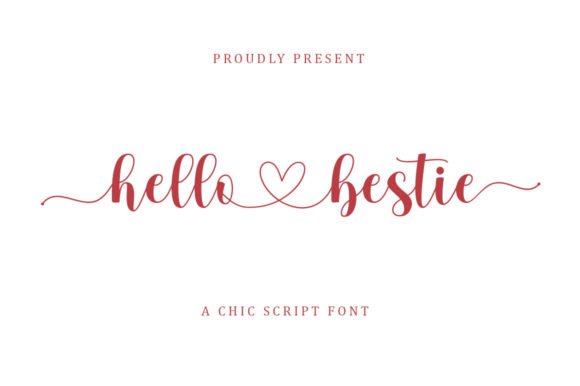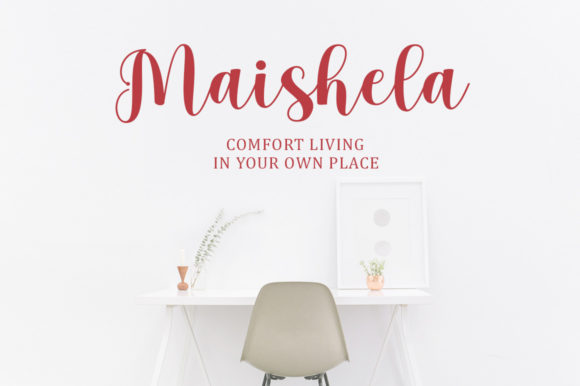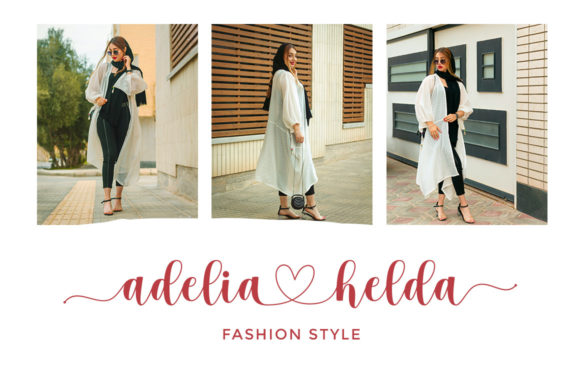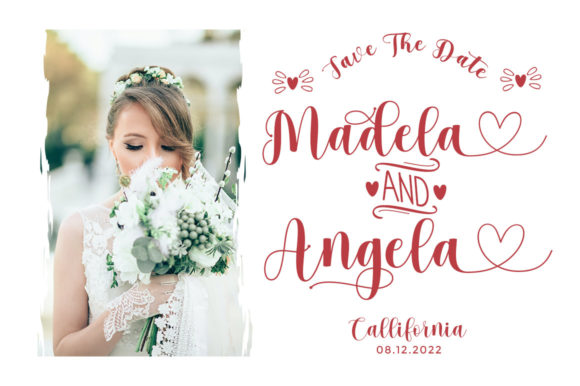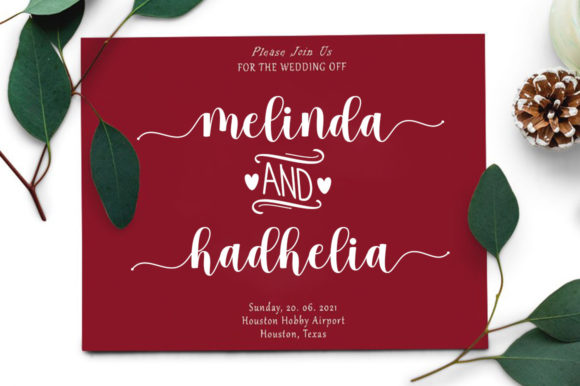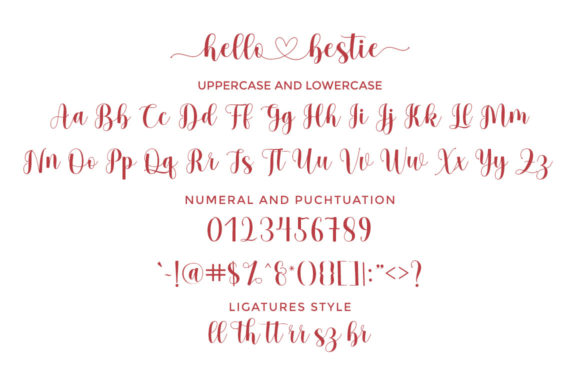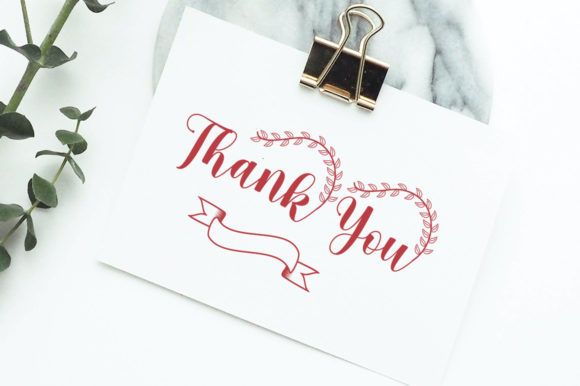
The Perfect Match for Your Next Design Project
You know that moment when you’re brainstorming ideas for your latest design project and everything just clicks into place? The font, the colors, the layout – it all comes together to create something truly special. For many designers, finding the right font can be the key to unlocking that magic. That’s why we’re excited to introduce you to the Hello Bestie Font, a free-flowing script font designed specifically for packaging products, invitation cards, flyers, and more.
This beautiful and balanced font is a valuable addition to any designer’s toolkit, offering a unique and eye-catching look that’s sure to elevate your designs. With its PUA encoding, you’ll have easy access to all of the glyphs and swashes you need to create truly stunning pieces. Whether you’re working on a personal project or a client assignment, the Hello Bestie Font is sure to be a trusted companion.
Hello Bestie Font Key Features
- Font Family: Hello Bestie, a modern and playful script font designed for digital use.
- Character Set: Supports a wide range of languages, including Latin, Cyrillic, and Greek alphabets, with over 500 glyphs.
- Unique Characteristics: Features a unique blend of elegance and playfulness, making it perfect for creating eye-catching headings, titles, and quotes.
Hello Bestie Font Review
I recently had the chance to work with the Hello Bestie Font, and I have to say, it’s a unique and eye-catching font. Here are my thoughts on what works well:
- ✨ The font’s playful and cursive script makes it perfect for greeting cards, invitations, and other social media posts.
- ✨ The font is highly customizable, with multiple styles and weights to choose from, making it suitable for a wide range of design projects.
- ✨ The font is highly legible, even at smaller sizes, which is a must for digital design.
However, there are a few limitations I noticed:
- ⚠️ The font can be a bit too ornate for some projects, and may not be suitable for corporate or formal designs.
- ⚠️ The font’s ligatures can be a bit too dramatic for some readers, which may affect readability.
- ⚠️ The font’s compatibility with certain software and platforms may be limited, which could lead to issues in design workflows.
Overall, I think the Hello Bestie Font is a great choice for designers looking to add a touch of whimsy and personality to their projects. However, it’s essential to consider the font’s limitations and use it thoughtfully to avoid any potential issues.
The “Hello Bestie Font” is perfect for:
- Creating custom invitations and
Q: Can I customize Hello Bestie Font to fit my specific design needs?
Yes, Hello Bestie Font is a highly customizable font. It includes a wide range of OpenType features, including ligatures, swashes, and stylistic sets. You can also use font editing software, such as FontForge or FontLab, to modify the font to fit your specific needs.